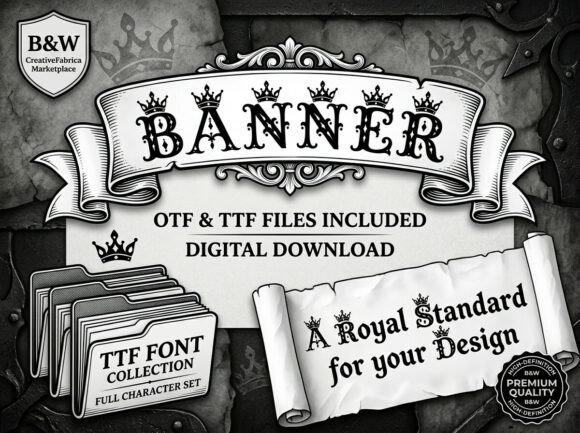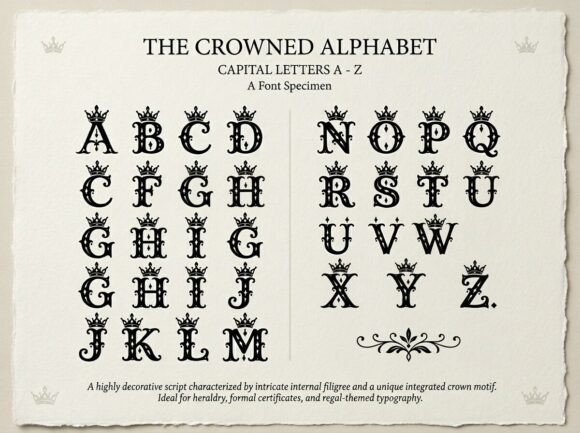
Introducing the Banner Font: A Stunning Decorative Display Font
Are you tired of using the same old fonts for your designs? Look no further! The Banner Font is a game-changing decorative display font that’s designed to grab attention and make your creations stand out from the crowd. With its unique artistic elements and strong visual personality, this font is perfect for designers, crafters, and creators who want to add a touch of elegance and sophistication to their work.
What Makes the Banner Font Special?
The Banner Font is a versatile and powerful font that’s specifically designed for high-impact headlines, logos, and decorative initials. Its unique features include:
- Unique Artistic Elements: The Banner Font features intricate and artistic elements that give it a distinctive look and feel. Each letter is carefully crafted to make a statement and add a touch of drama to your designs.
- Strong Visual Personality: This font has a bold and confident personality that’s sure to make your designs stand out. Whether you’re creating a logo, headline, or packaging, the Banner Font is sure to make a lasting impression.
- Professional and Polished Finish: Despite its bold and artistic nature, the Banner Font maintains a professional and polished finish that’s suitable for a wide range of design applications.
Who is the Banner Font For?
The Banner Font is perfect for:
- Graphic Designers: If you’re a graphic designer looking for a unique and versatile font to add to your collection, the Banner Font is a great choice.
- Crafters: If you’re a crafter who loves to create handmade cards, gift tags, and other paper crafts, the Banner Font is a great addition to your design toolkit.
- Small Business Owners: If you’re a small business owner looking for a bold and attention-grabbing font to use in your branding and marketing materials, the Banner Font is a great option.
How to Use the Banner Font
The Banner Font is easy to use and can be applied to a wide range of design applications, including:
- Headlines and Titles: Use the Banner Font to create bold and attention-grabbing headlines and titles for your designs.
- Logos and Branding: Use the Banner Font to create unique and memorable logos and branding materials for your business or organization.
- Packaging and Labels: Use the Banner Font to add a touch of elegance and sophistication to your packaging and labels.
The Banner Font is a stunning decorative display font that’s sure to take your designs to the next level. With its unique artistic elements, strong visual personality, and professional and polished finish, this font is perfect for designers, crafters, and creators who want to add a touch of elegance and sophistication to their work. So why wait? Purchase the Banner Font today and start creating stunning designs that grab attention and make a lasting impression!